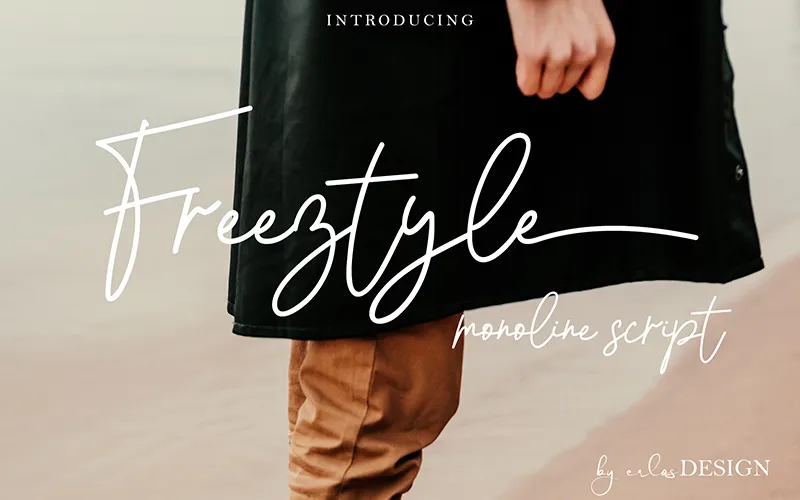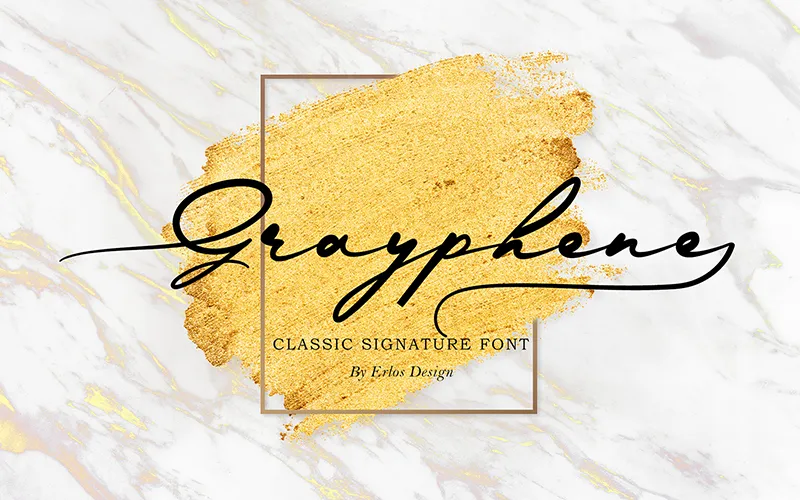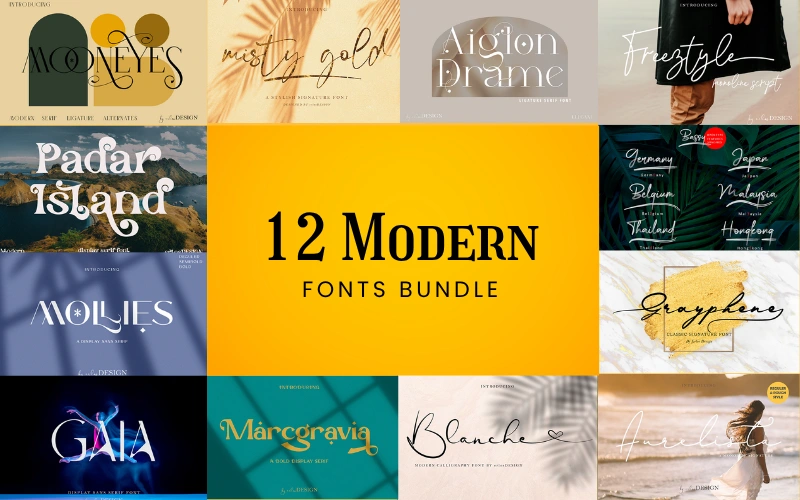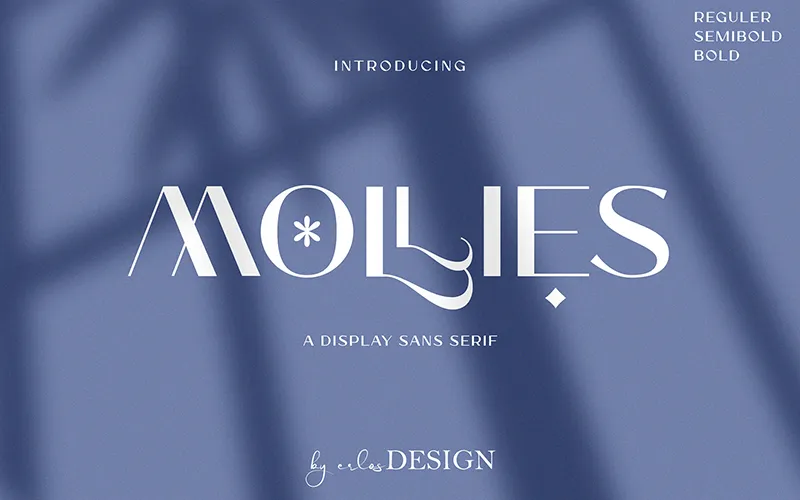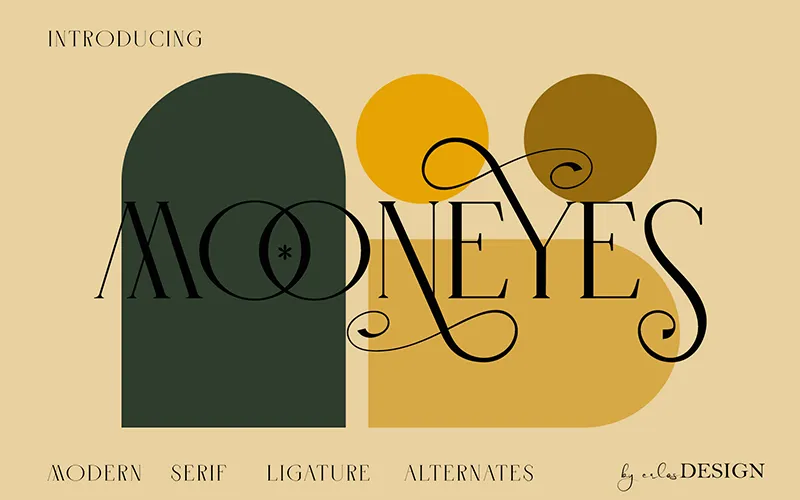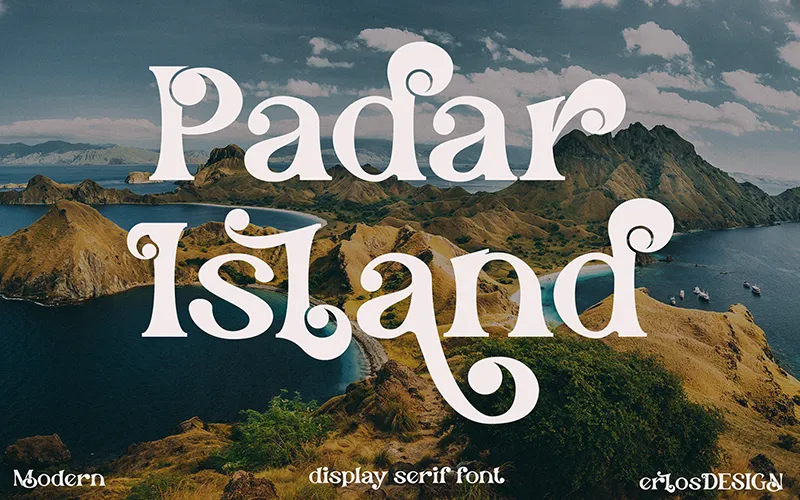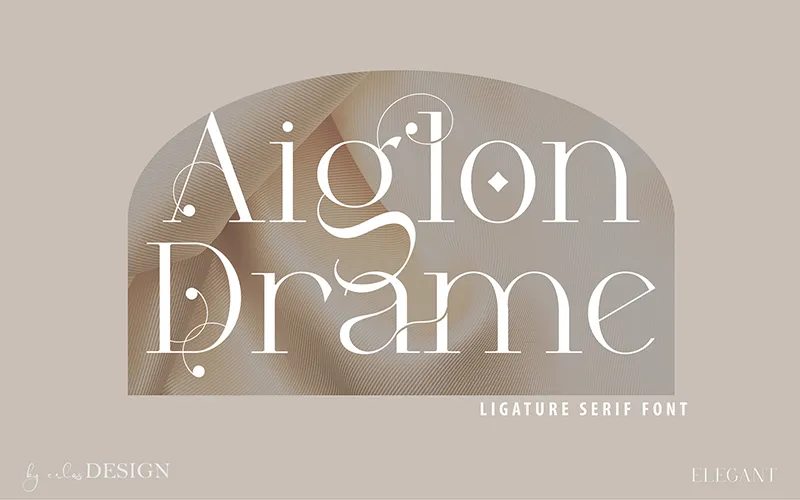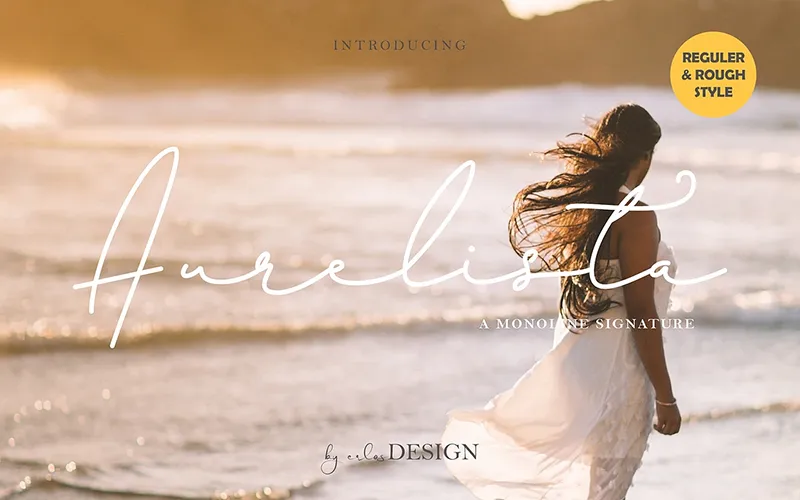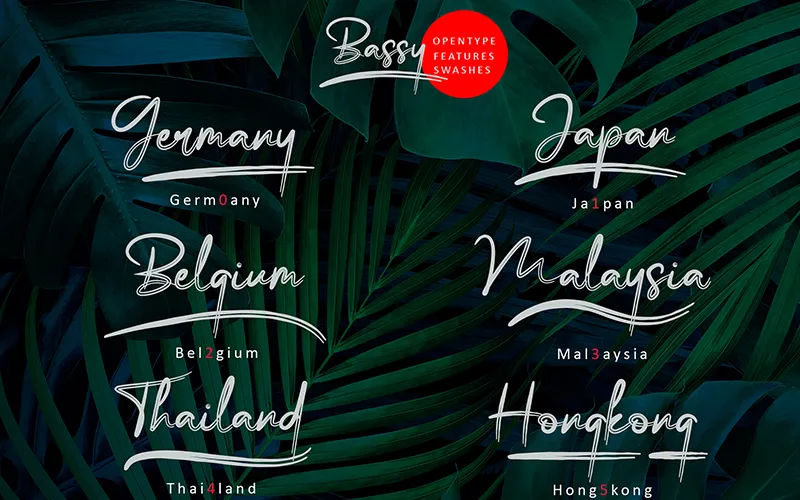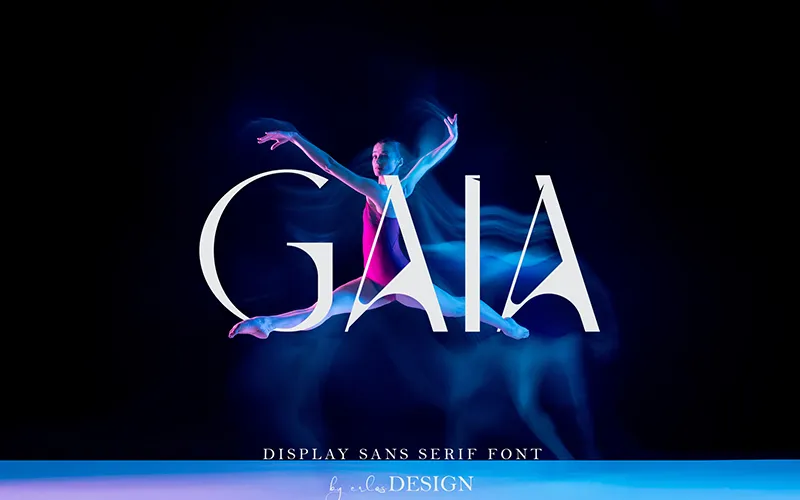
TL;DR
• 12 Modern Fonts.
• Categorized into Script, Display, and Sans-serif fonts.
Modern Fonts Bundle
These fonts are categorized in sans-serif, display, and script fonts, which support font types like:
• Brush
• Modern
• Retro
• Handwritten
And special characters like :
• Ligatures
• Swashes
• Alternates
• Glyphs
• Font Styles: Sans-Serif, Display & Script.
• Types of fonts included – Brush, Handwritten, Retro & Modern.
• Special characters supported by the fonts – Ligatures, Swashes, Alternates
& Glyphs.
Preview of 12 Modern Fonts Bundle :
1. Aiglon Drame – Modern Ligature Serif
Aiglon drame font
2. Aurelista – Monoline Signature
Aurelista font from modern fonts bundle
3. Bassy – Brush Font
Bassy font
4. Blanche – Signature Font
Blanche font
5. Freestyle – Monoline Script
Freeztyle font
6. Gaia – Display Sans Serif
Gaia font
7. Grayphene – Signature Font
Grayphene font
8. Marcgravia – Modern Serif
Marcgravia font
9. Misty Gold – Signature Font
Misty gold font from modern fonts bundle
10. Mollies – Sans Serif Fonts
Mollies font from Modern fonts
11. Mooneyes – Modern Serif
Mooneyes font from Modern fonts bundle
12. Padar Island – Display Serif Font
Padar Island font from modern fonts bundle